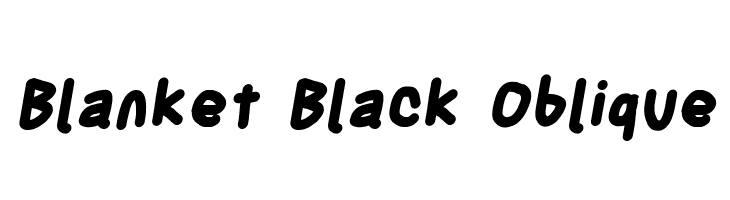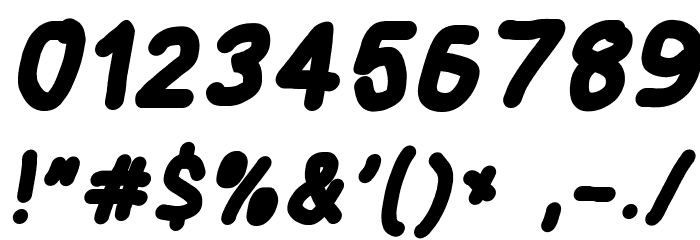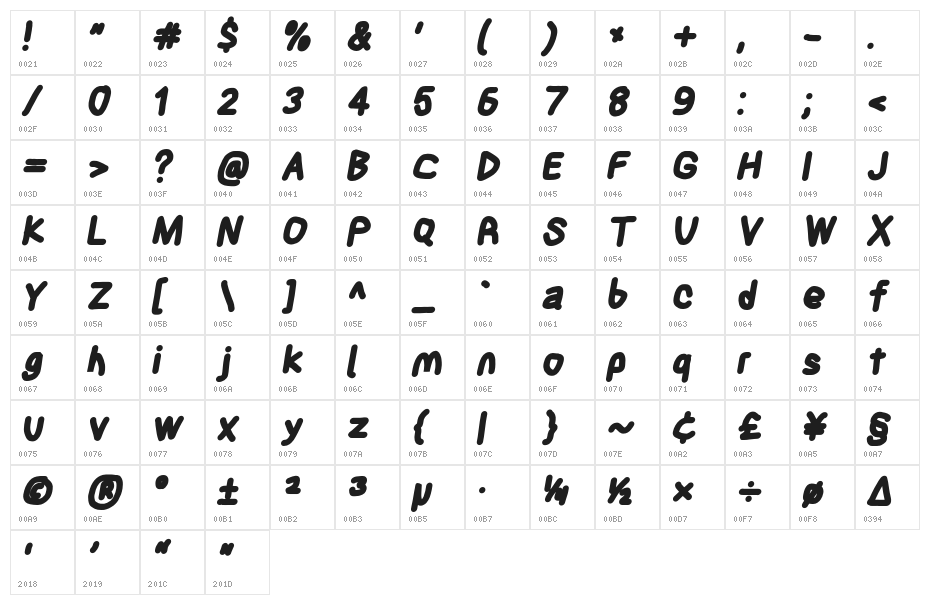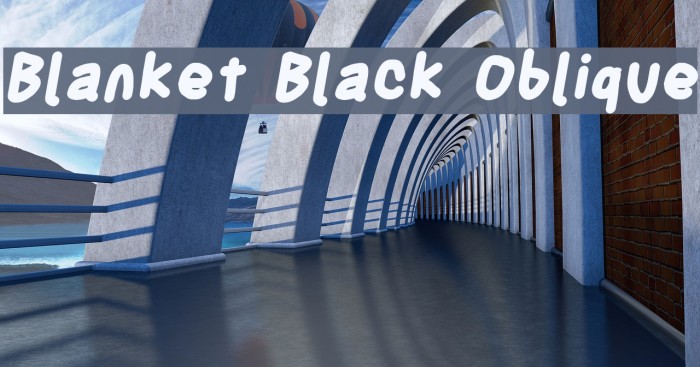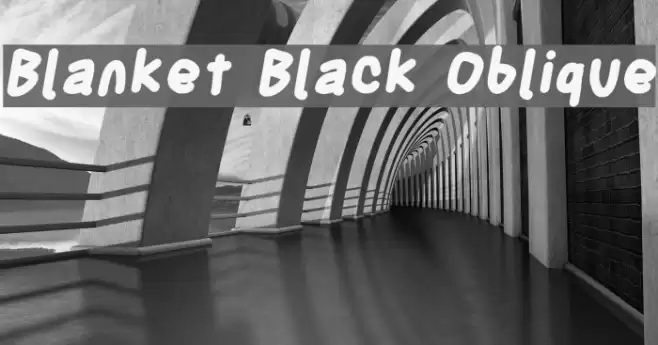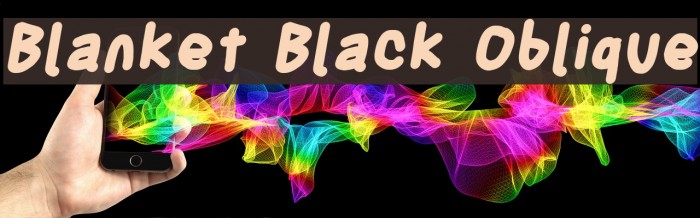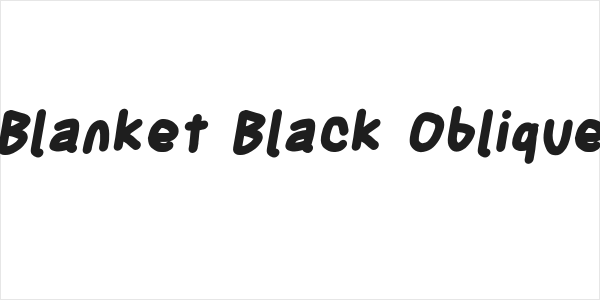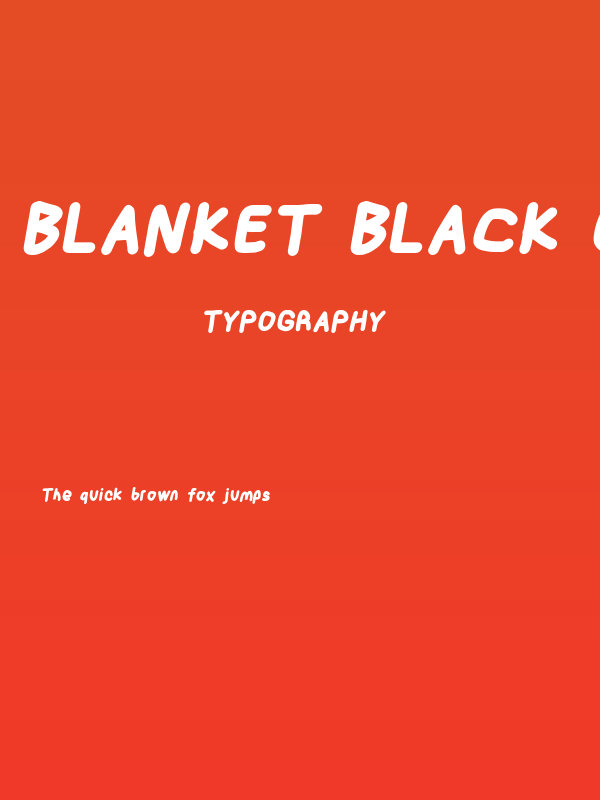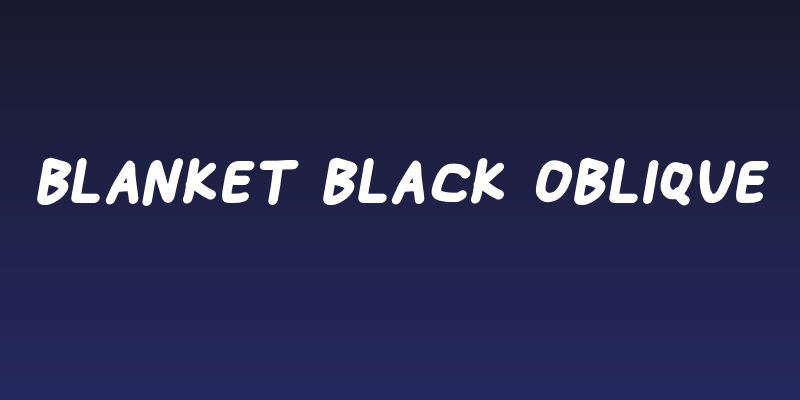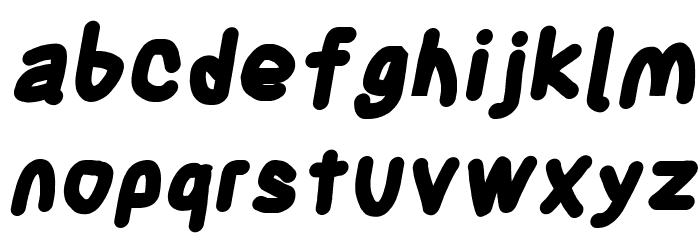
Blanket Black Oblique Font
Blanket Black Oblique Description
This font features a bold and playful style with rounded edges and a slightly oblique slant, giving it a dynamic and energetic appearance. The characters are thick and substantial, making them highly legible and impactful. The uppercase and lowercase letters maintain a consistent weight, contributing to a cohesive look. The numbers and special characters follow the same bold and rounded design, ensuring uniformity across all elements. This font's casual and friendly vibe makes it suitable for a variety of creative applications.
| Proposed Projects | Ideal for children's books, playful branding, posters, and social media graphics. |